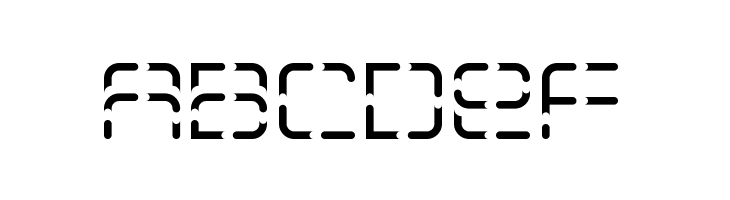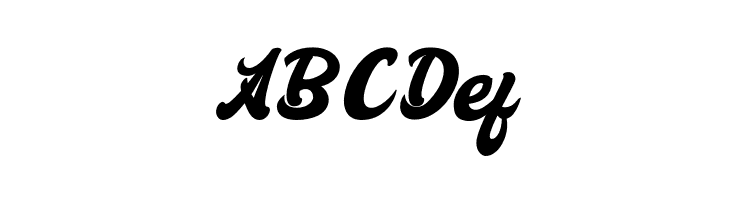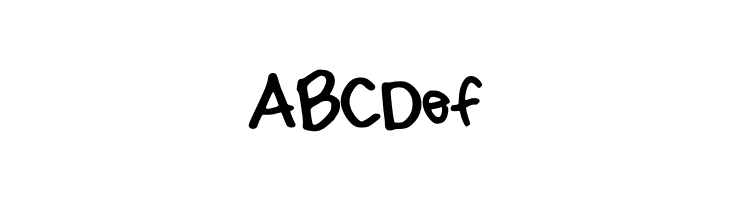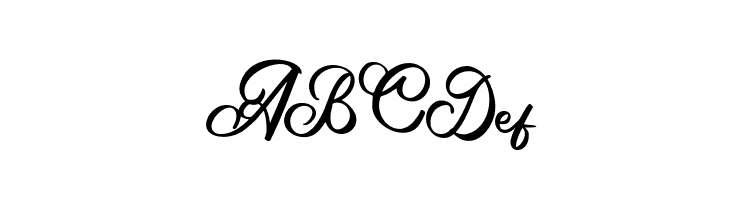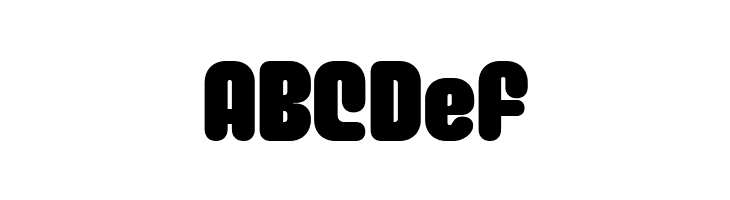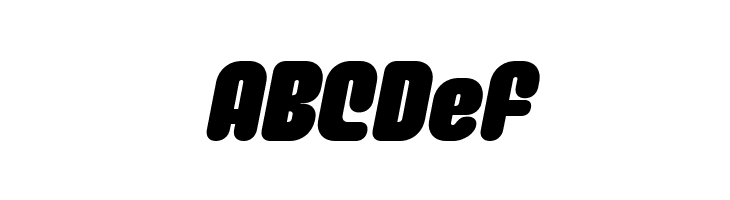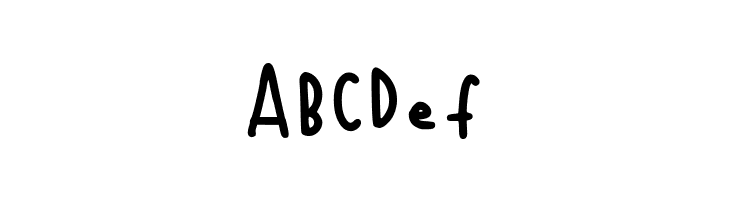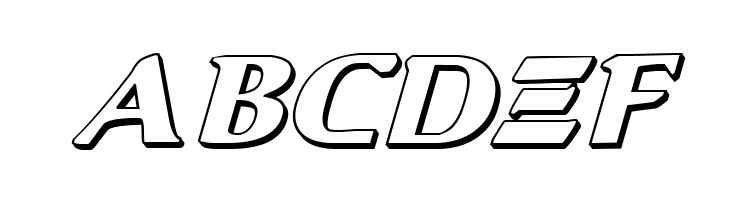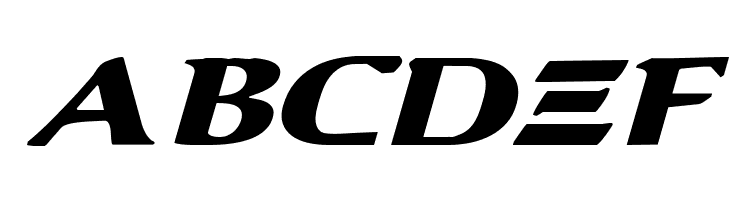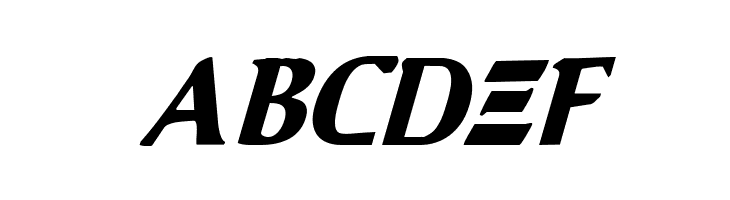
A bold, 3D geometric font with a futuristic style.
A bold, 3D italic font with a futuristic and geometric style.
A bold, condensed font with geometric influences and dynamic flair.
A bold, condensed, and italicized font with sharp angles and a dynamic style.
A bold, expanded font with geometric and angular elements, perfect for impactful designs.
A bold, italic, and expanded font with a modern, dynamic style.
A bold, italicized font with sharp, angular features.
A bold, left-leaning font with sharp, angular edges and a geometric style.
A playful, handwritten font with a friendly and informal style.
A playful, handwritten font with smooth, rounded strokes and a casual feel.
A bold, modern sans-serif font with clean lines and balanced spacing.
A playful, handwritten font with rounded, irregular letterforms.
An elegant script font with flowing, interconnected letters and ornate uppercase characters.
An elegant script font with flowing, interconnected letters and a classic calligraphic style.
A bold, rounded, and playful italic font with a modern aesthetic.
A bold, rounded font with a strong and friendly appearance.
A bold, geometric font with a futuristic and technical design.
A fragmented, distressed font with a bold and chaotic design.
A bold, fragmented font with a chaotic and edgy style.
A modern, rounded sans-serif font with excellent readability.
A bold, elegant script font with interconnected characters and ornate flourishes.
A bold, expressive script font with flowing, cursive letterforms.
A dynamic, futuristic font with sharp angles and a forward-leaning slant.
A futuristic, geometric font with bold, interconnected lines and angular shapes.
A futuristic, geometric font with bold, angular shapes.